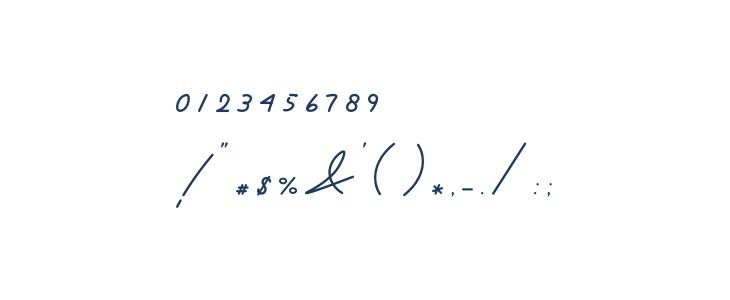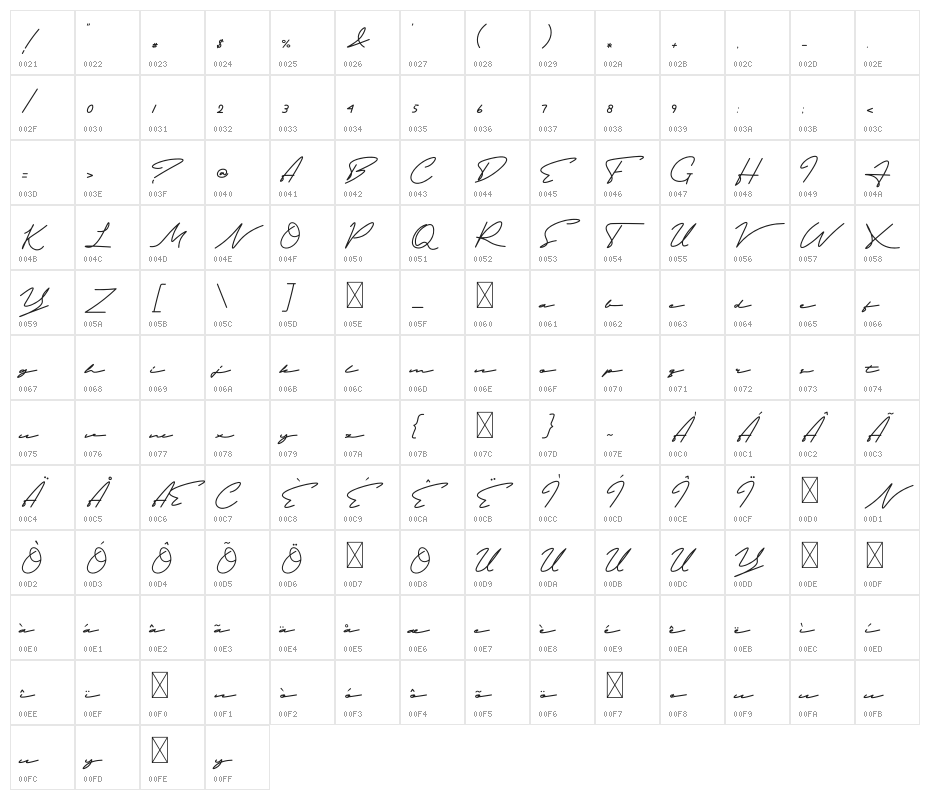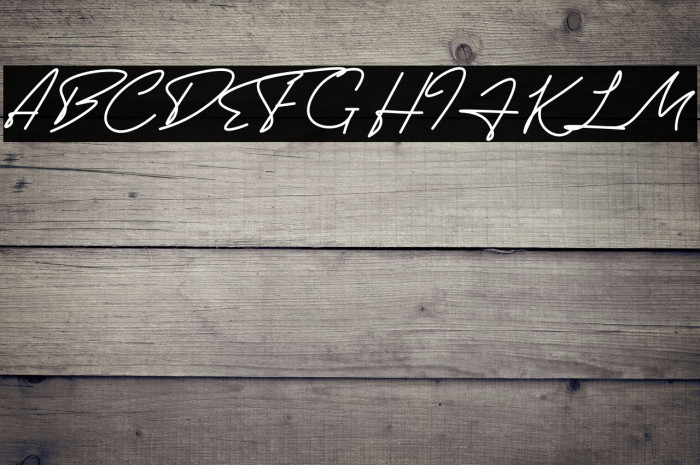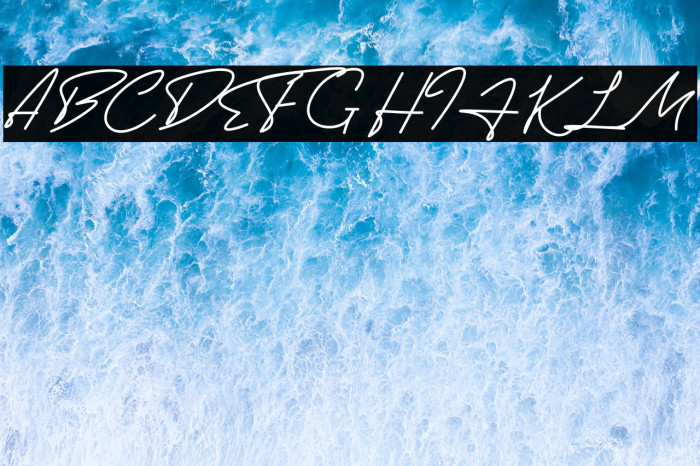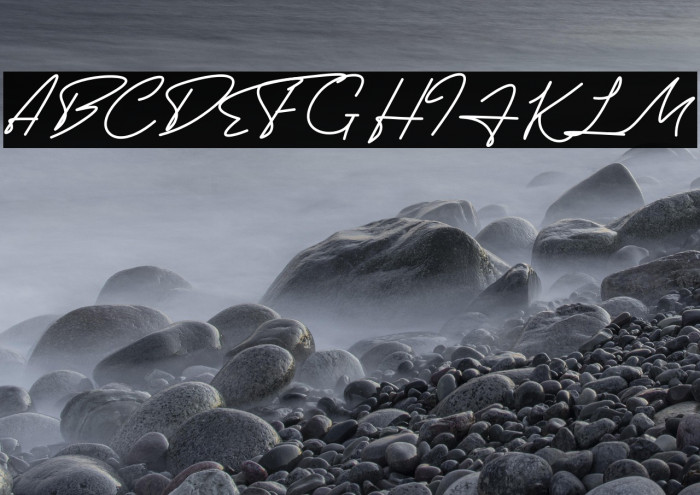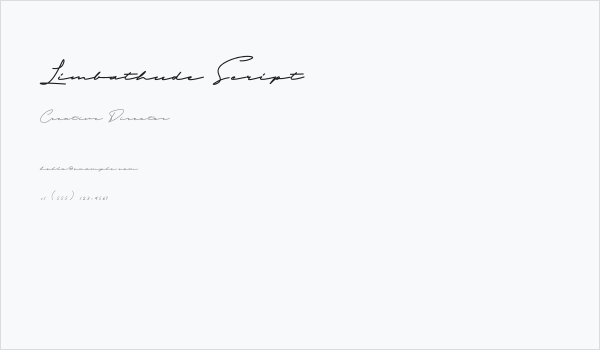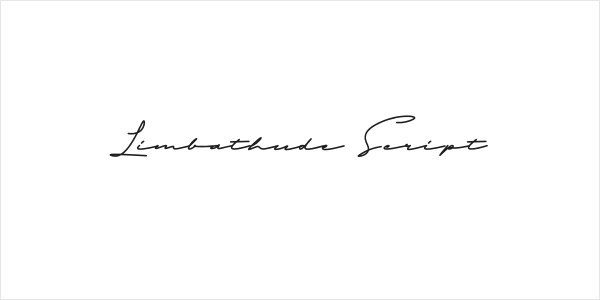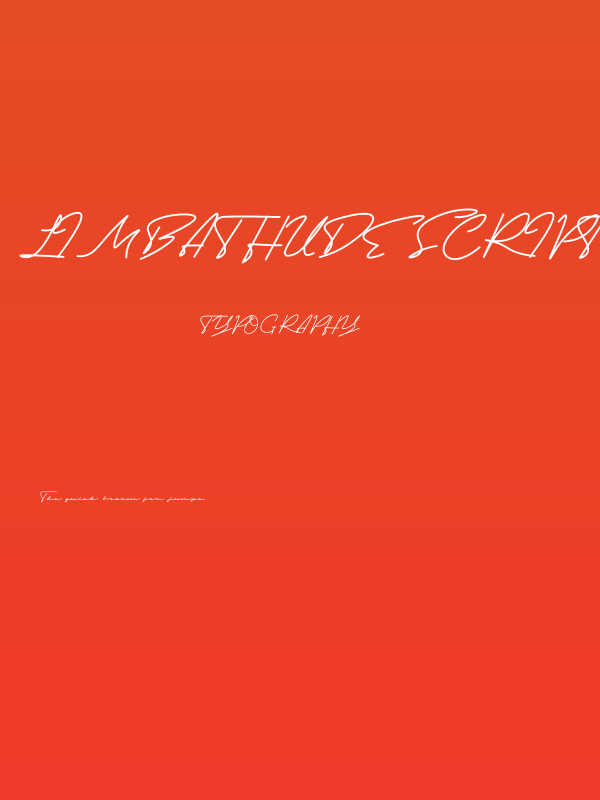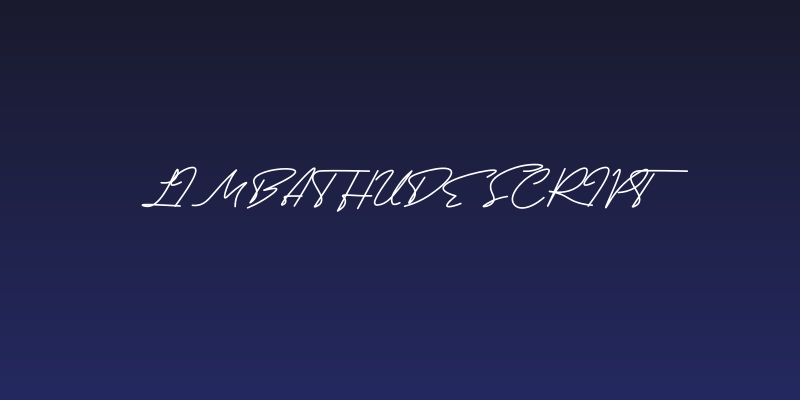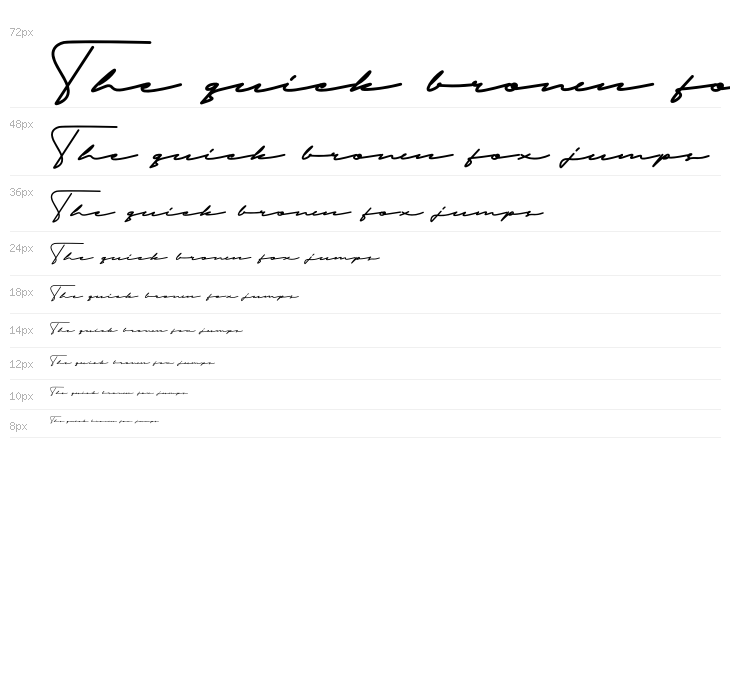
Limbathude Script Font
Limbathude Script Description
This script font exudes elegance and fluidity, characterized by its smooth, flowing lines and cursive style. The uppercase letters are distinctively stylish, with a slight slant that adds a dynamic feel. Lowercase letters maintain a consistent flow, enhancing readability while retaining an artistic flair. The numerals are clear and well-defined, complementing the overall aesthetic. Special characters are crafted with the same attention to detail, ensuring versatility in various design contexts. This font is perfect for projects that require a touch of sophistication and personal expression.